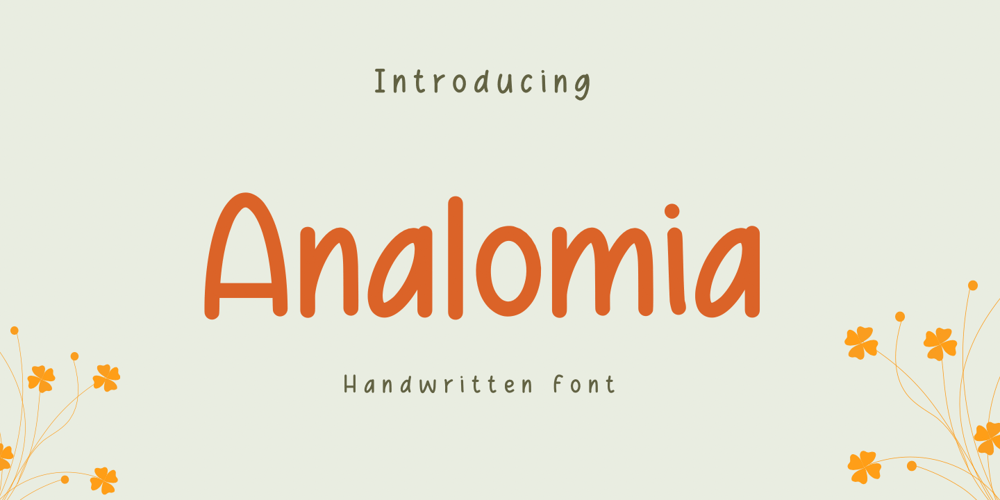
Analomia Font Family was designed by David Perkasya and published by Insan Perkasya. Analomia contains 1 styles and family package options. “Analomia” is a font that combines simple elements with a cheerful vibe and handwritten style, creating a friendly and inviting impression. With a design that is simple yet full of character, this font is suitable for various design projects that aim to convey creativity and warmth.